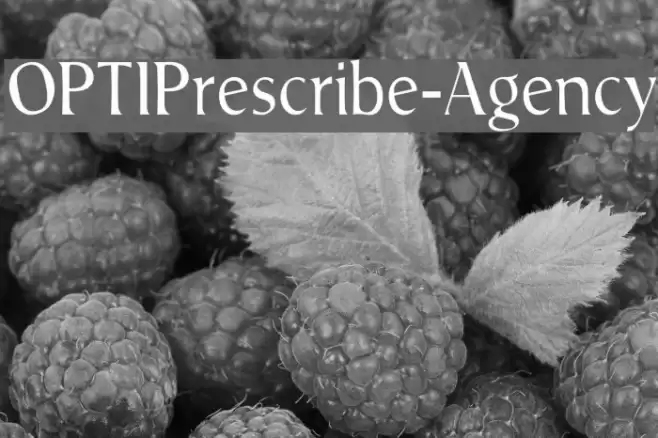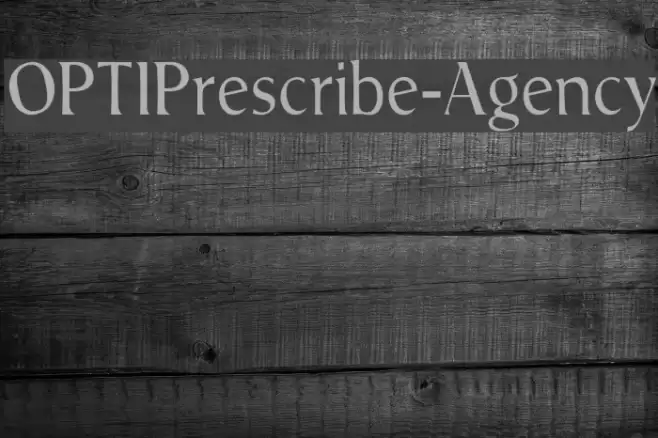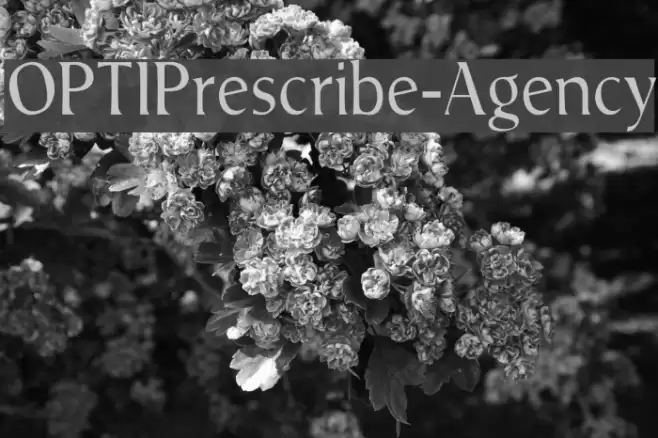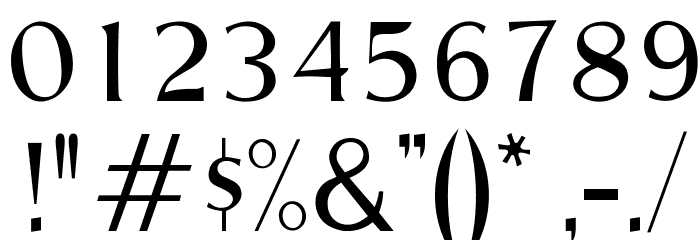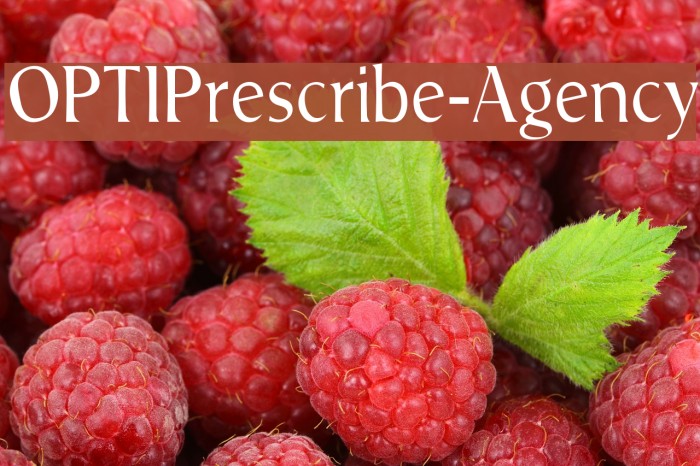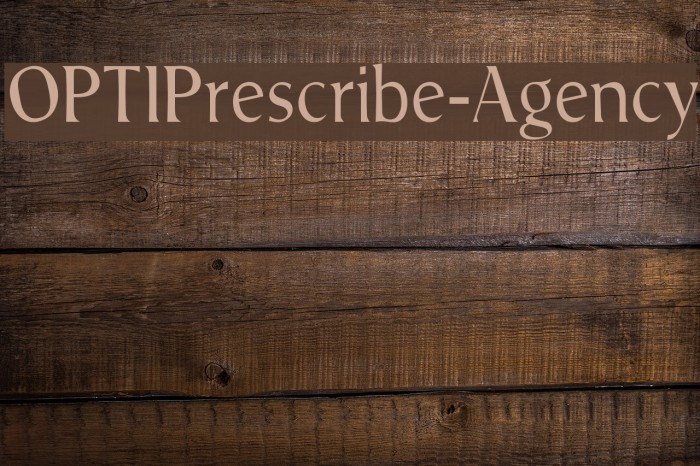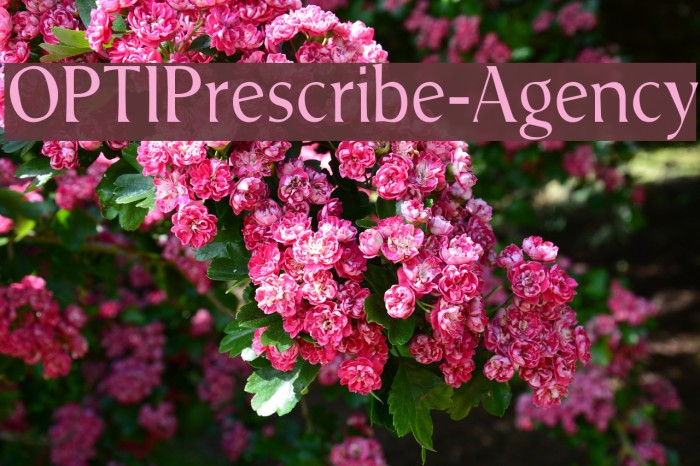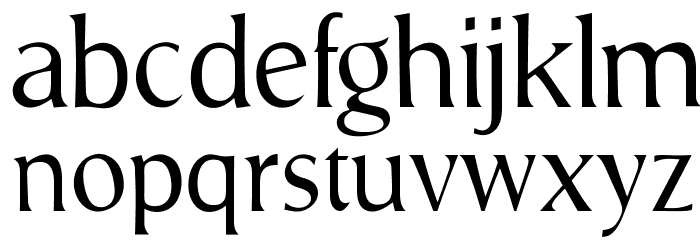
OPTIPrescribe-Agency Font
OPTIPrescribe-Agency Description
This font exhibits a classic serif style with a modern twist, characterized by its elegant and refined letterforms. The serifs are pronounced yet not overly exaggerated, providing a balanced and sophisticated appearance. The uppercase letters are tall and commanding, while the lowercase letters maintain a harmonious flow. The numerals are clear and distinct, ensuring readability across various applications. Special characters are thoughtfully designed, maintaining the overall aesthetic of the typeface. This font is versatile, suitable for both digital and print media, and can enhance the visual appeal of any project.
A classic serif font with a modern twist, offering elegance and readability from Uncategorized fonts.
- Proposed Projects: Ideal for editorial design, book covers, branding, and formal invitations.
- Overall Style: Classic